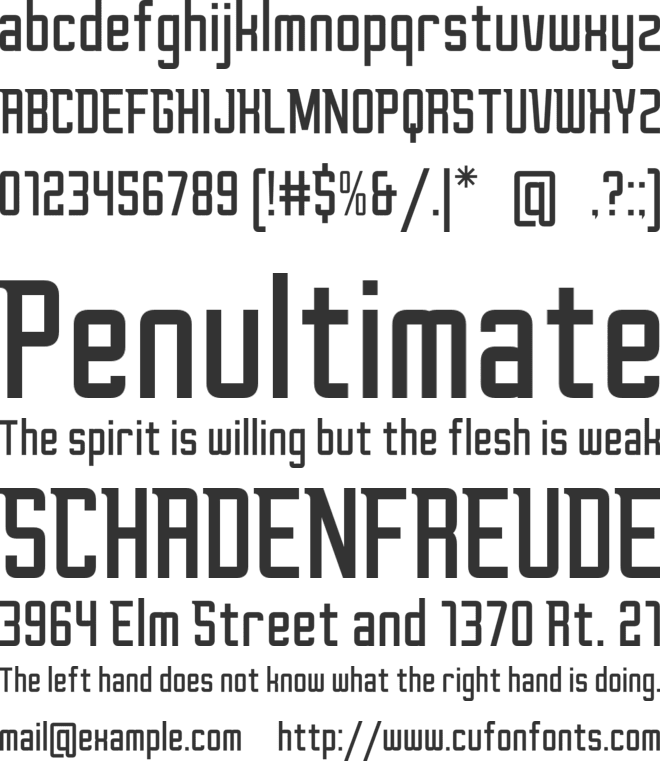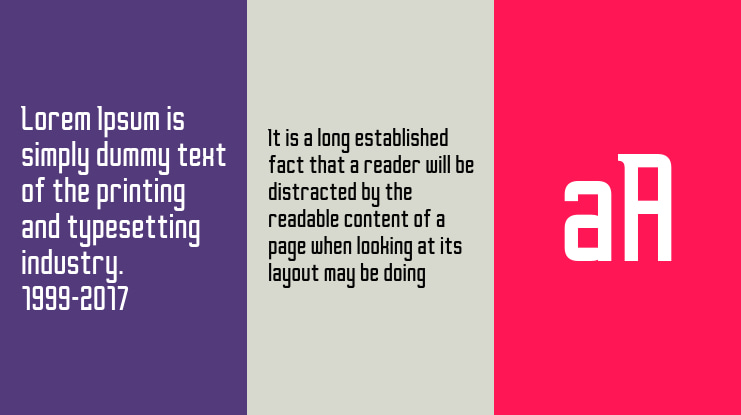
Oxyden Font
Oxyden is a modern display typeface designed with a strong geometric structure and confident proportions. Built for impact, this font features bold vertical strokes, sharp angles, and a slightly condensed form that gives it a fast, futuristic presence without feeling aggressive.